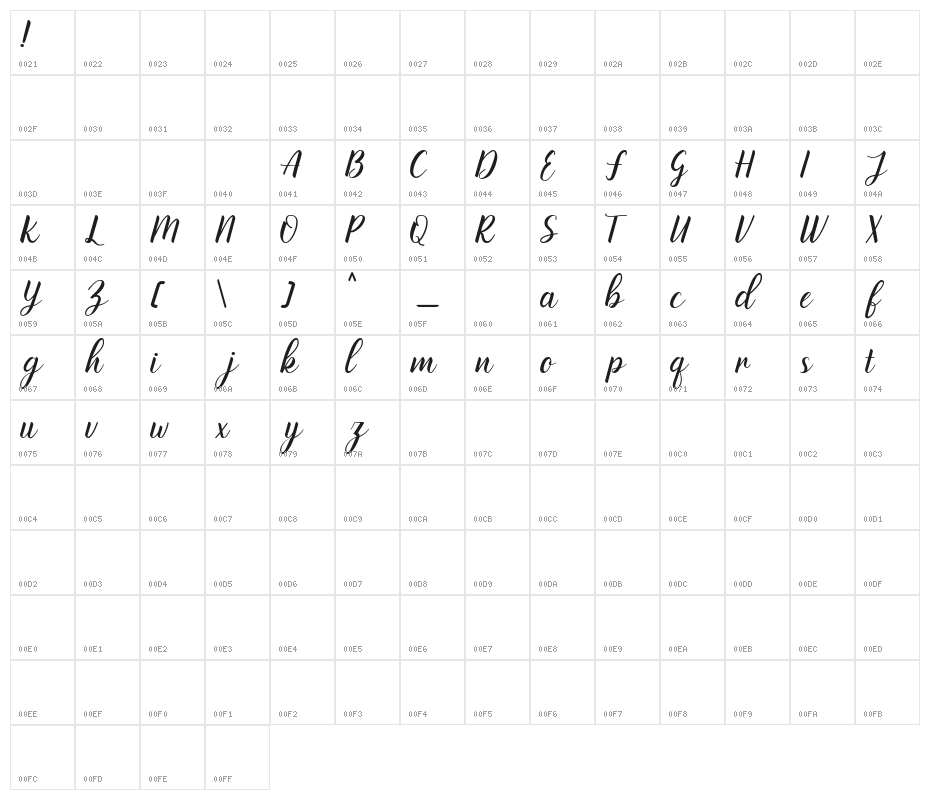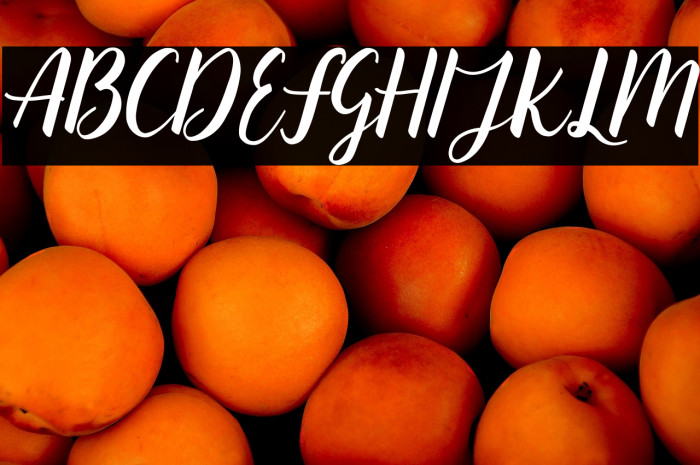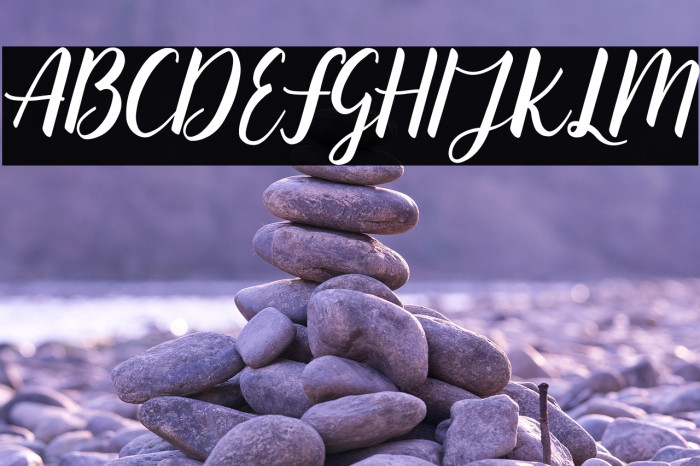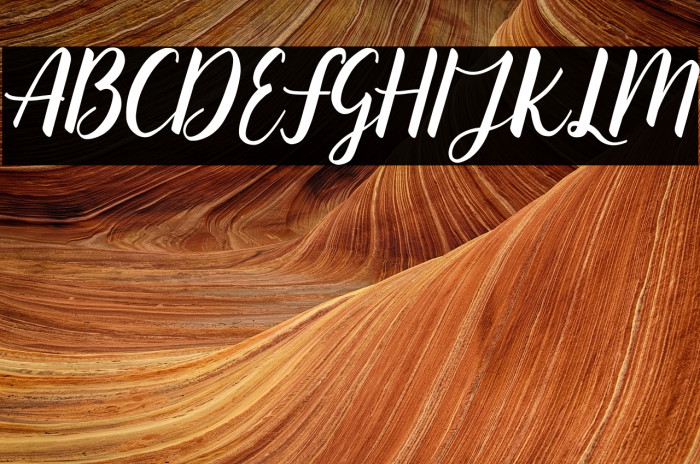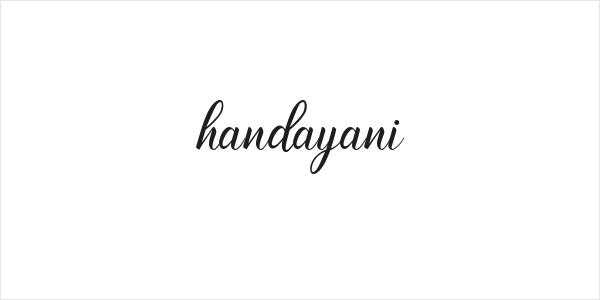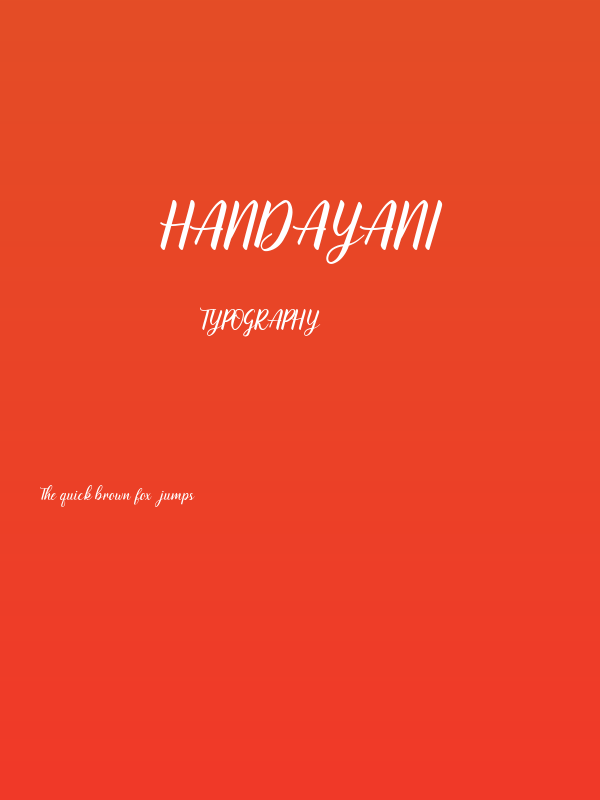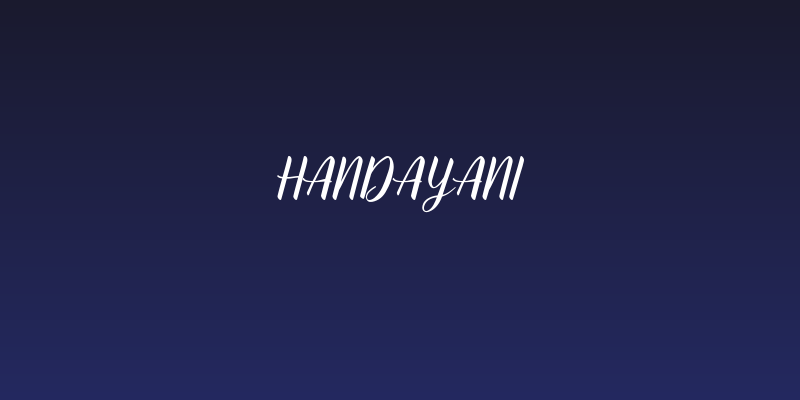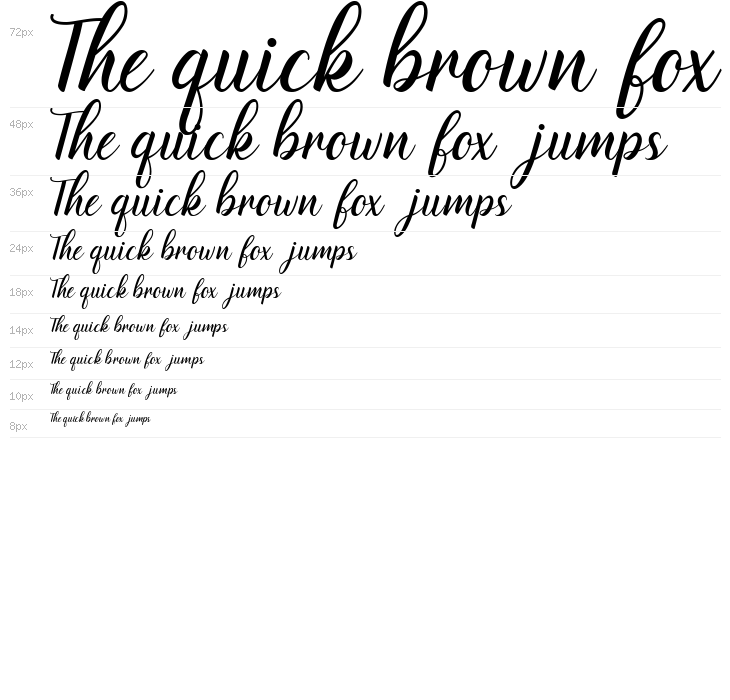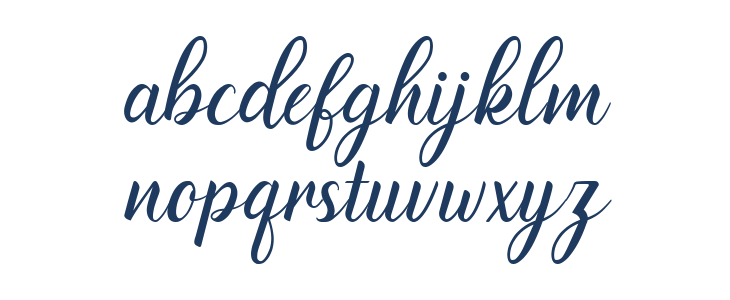
handayani Font
handayani Description
This font features an elegant and flowing script style, characterized by its smooth, cursive strokes and a sense of fluidity. The letters are interconnected, creating a harmonious and continuous flow that is both sophisticated and artistic. The uppercase letters exhibit a graceful flair, while the lowercase letters maintain a consistent rhythm and balance. The font's design is reminiscent of calligraphy, with a modern twist that adds a touch of contemporary elegance. Its bold appearance ensures readability while maintaining an artistic appeal.
| Proposed Projects | Ideal for wedding invitations, greeting cards, branding, and elegant packaging designs. |